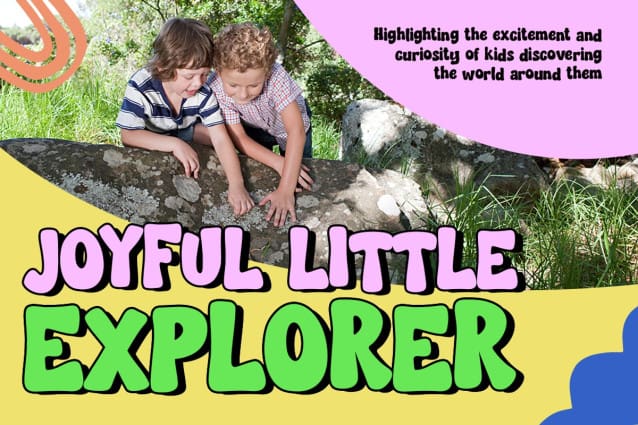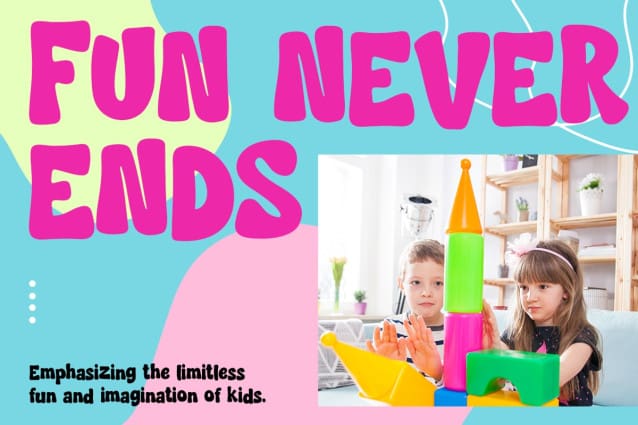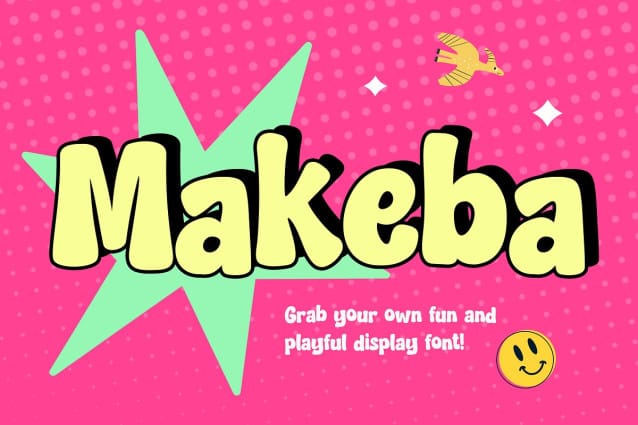
Makeba Display Font
MAKEBA DISPLAY FONT, the ultimate playful display font that adds a splash of fun and creativity to any project. Perfectly designed with a whimsical flair, MAKEBA captures the essence of childhood imagination and joy. Its bold, cheerful characters are ideal for eye-catching headlines, vibrant posters, and engaging children’s materials.
Whether you’re creating invitations, educational content, or playful branding, MAKEBA infuses each design with a lively, spirited touch that captures attention and delights audiences.
MAKEBA DISPLAY FONT isn’t just a font; it’s a celebration of fun and creativity. Each letter is crafted with playful curves and dynamic forms that make text come alive, turning ordinary designs into extraordinary experiences. Bring a sense of whimsy and excitement to your work with MAKEBA, where every character invites smiles and sparks imagination.